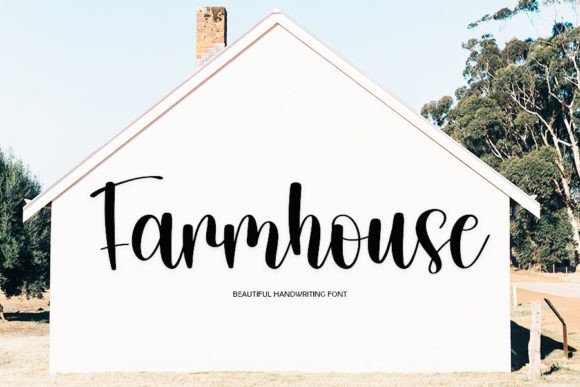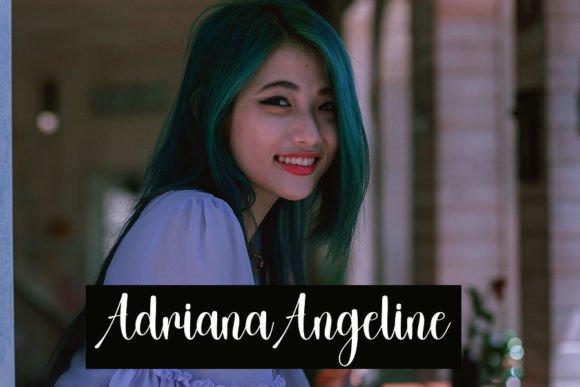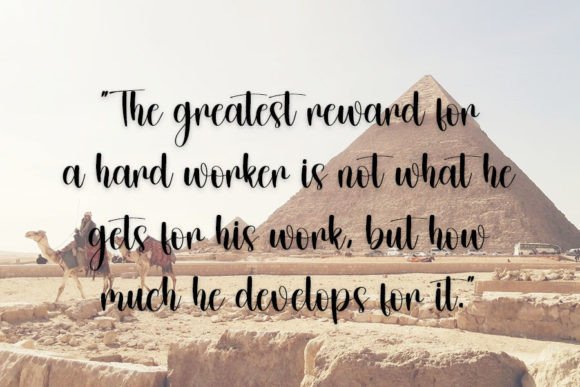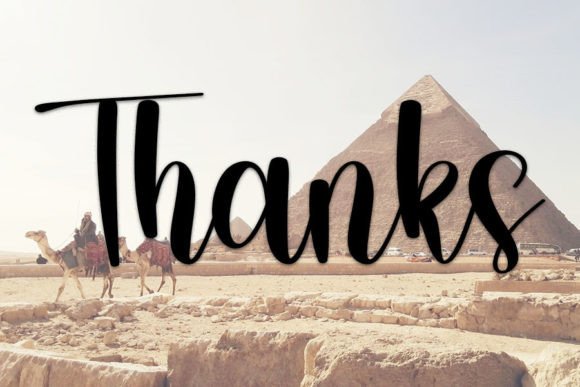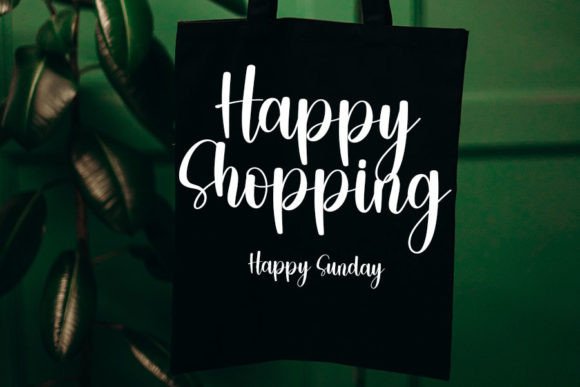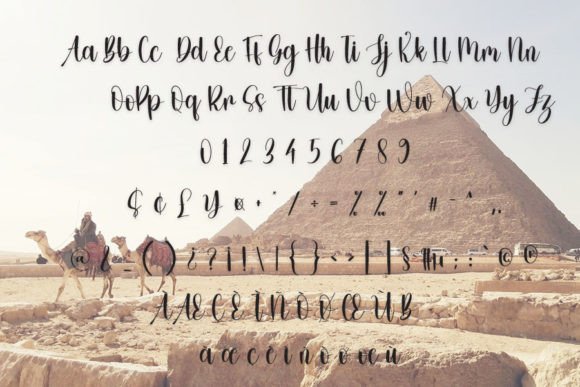
History Font
About History Font
History font is a delicate and carefully crafted handwritten typeface designed to add a cool and unique touch to your creative projects. Whether you’re looking to create personalized letters, elegant invitations, appealing food product packaging, or eye-catching titles, this font is a versatile choice that brings warmth and charm to any design.
A Delicate Handwritten Style
The History font captures the natural beauty of handwriting with its soft strokes and subtle variations. It’s designed to feel personal and genuine, providing your projects with a distinct and approachable look. This delicate style helps your text stand out while maintaining readability, making it suitable for a wide range of uses.
Ideal for Letters and Invitations
When writing letters or invitations, it’s essential to use a font that feels intimate and sincere. History font’s flowing handwriting style conveys just that. Use it to create heartfelt invitations for weddings, parties, or special occasions, or add a personal touch to your letters that friends and family will truly appreciate.
Perfect for Food Product Packaging
The charm of History font extends to product packaging, especially in the food industry. Its natural and elegant feel gives labels and packaging a handcrafted appearance. This makes your products feel more artisanal and authentic, appealing to customers who value quality and care.
Eye-Catching Titles and Headlines
History font also shines in titles and headlines, where it grabs attention with its unique flair. Use it in posters, social media graphics, or branding materials to add a sophisticated yet friendly touch. The font’s versatility ensures it looks great in both large and small sizes.
Versatile and Easy to Use
One of the strengths of Historyfont is its versatility. It adapts well to different projects, whether printed or digital. The font’s balanced design makes it easy to pair with other typefaces, allowing you to experiment with layouts and styles freely.
Why Choose History Font?
Choosing Historyfont means opting for a beautiful, handwritten style that adds personality and warmth to your designs. Its delicate strokes and unique appearance make it perfect for anyone wanting to create projects that feel both elegant and personal. Whether you’re a designer, crafter, or business owner, Historyfont will elevate your work with its refined charm.
Bring Your Ideas to Life with History Font
Whether you need a font for invitations, packaging, or titles, Historyfont offers the perfect balance of style and readability. Its handcrafted look enhances your creative ideas and makes your projects more engaging. Try Historyfont today and see how it transforms your designs into memorable works of art.